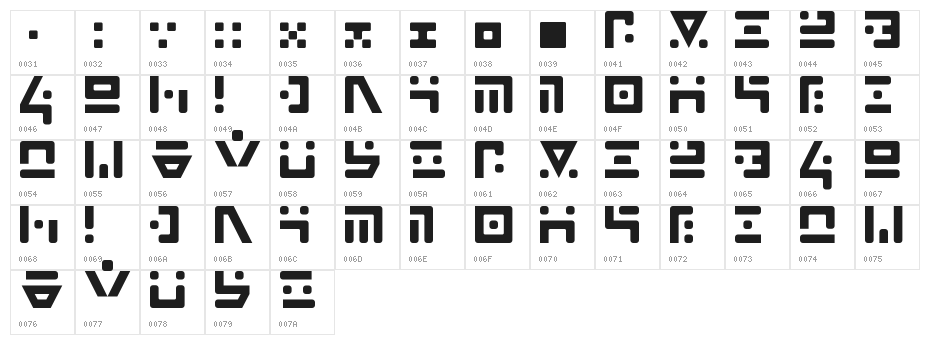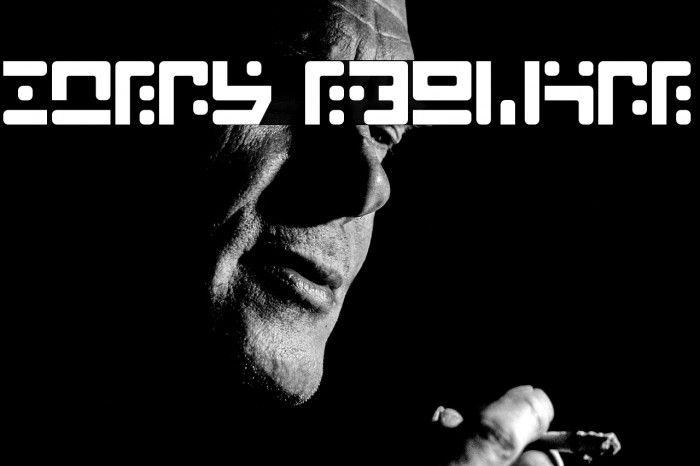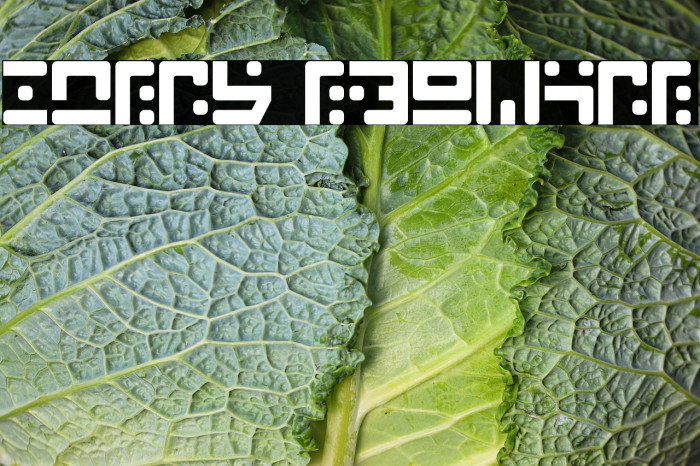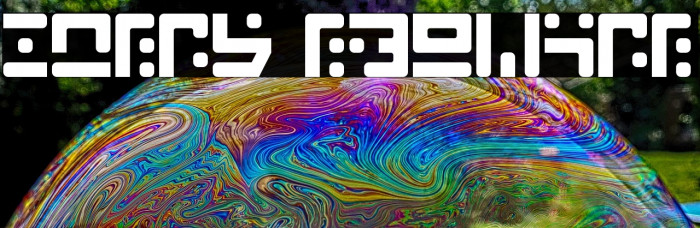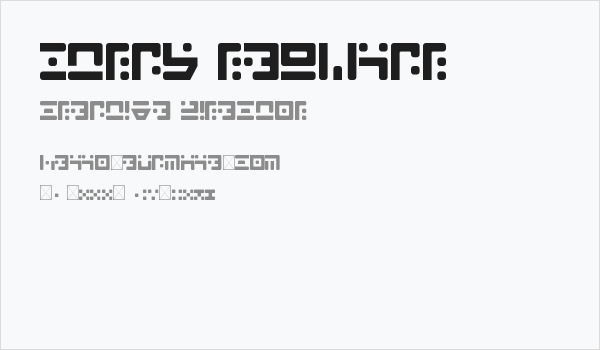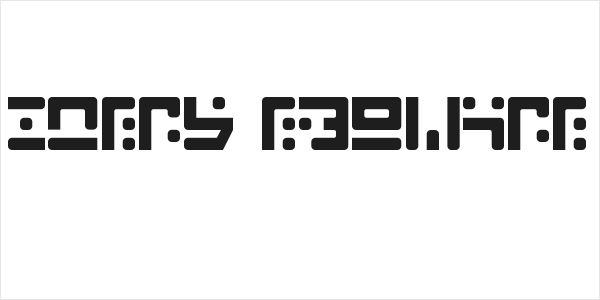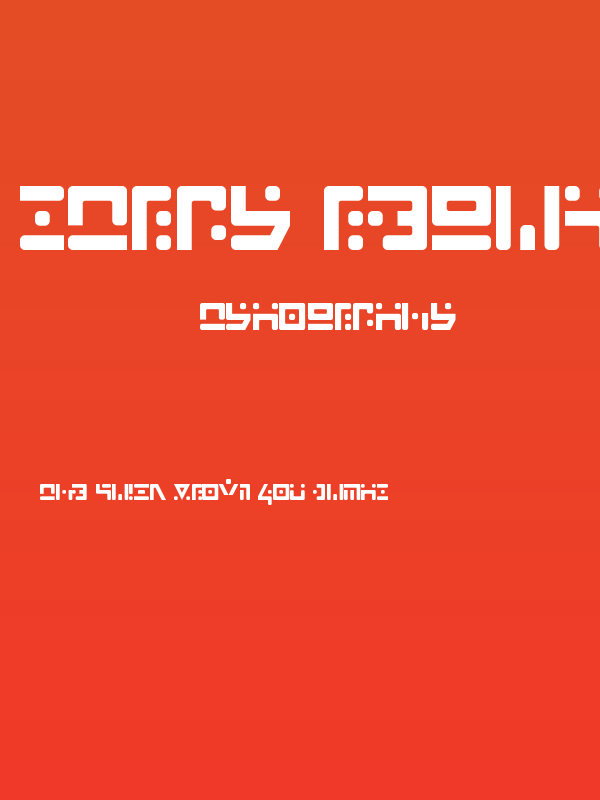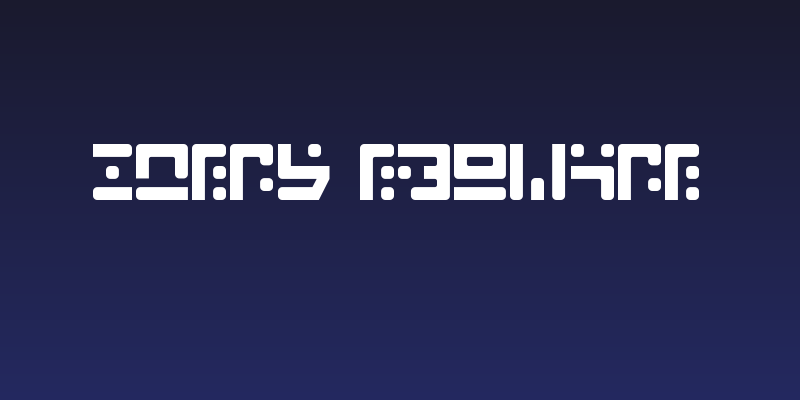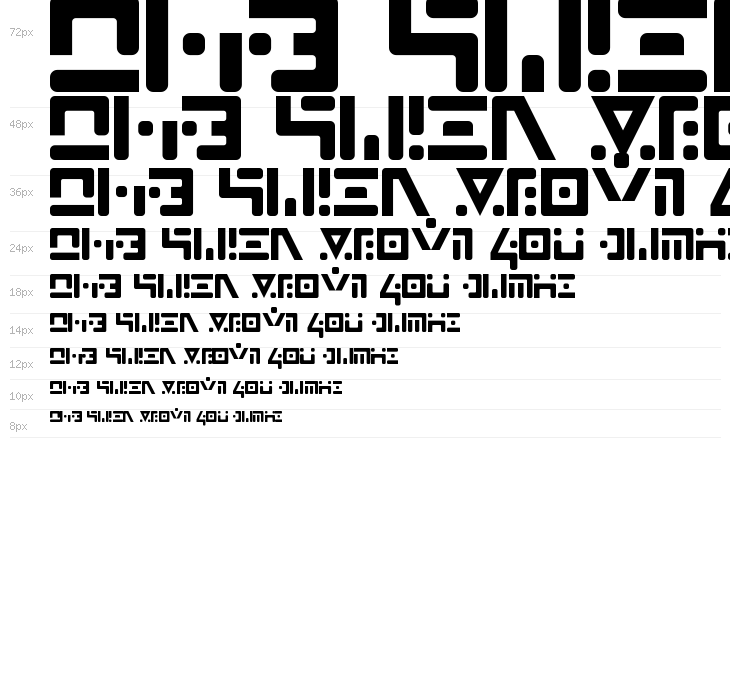
Stray Regular Font
Stray Regular Description
This font features a highly stylized and futuristic design, characterized by geometric shapes and a digital aesthetic. The characters are composed of bold, block-like forms with rounded edges, creating a sense of modernity and innovation. The use of dots and lines within the characters adds a unique, almost alien-like appearance, making it stand out as a decorative typeface. Its design is reminiscent of digital or sci-fi themes, suitable for projects that require a bold and unconventional look. The font's structure is consistent, with uniform stroke thickness and a strong visual impact.
| Proposed Projects | Ideal for video game titles, sci-fi movie posters, technology branding, and futuristic-themed designs. |